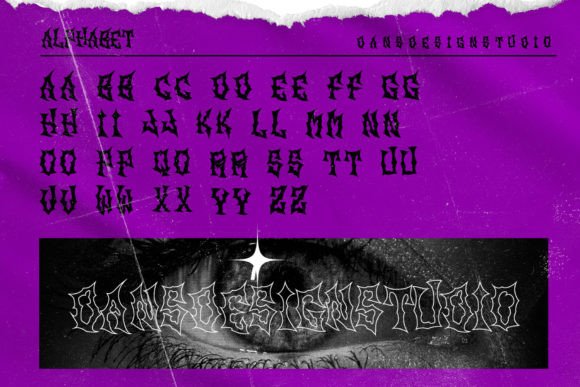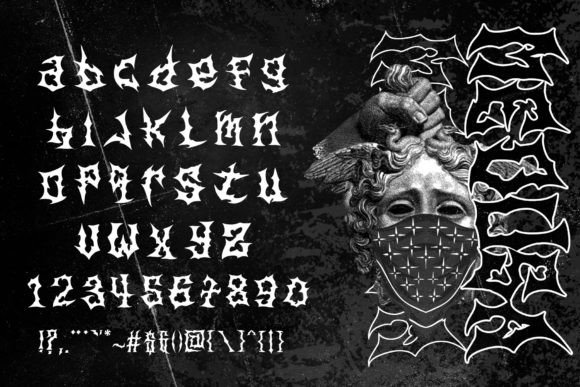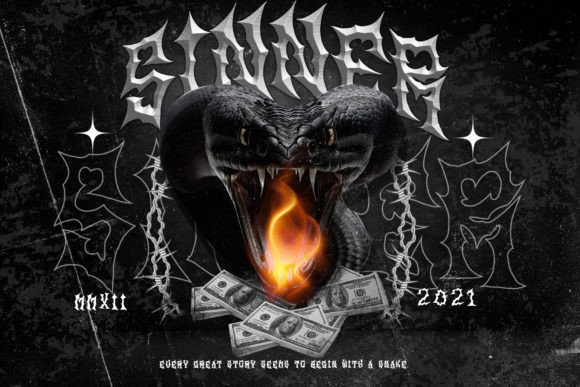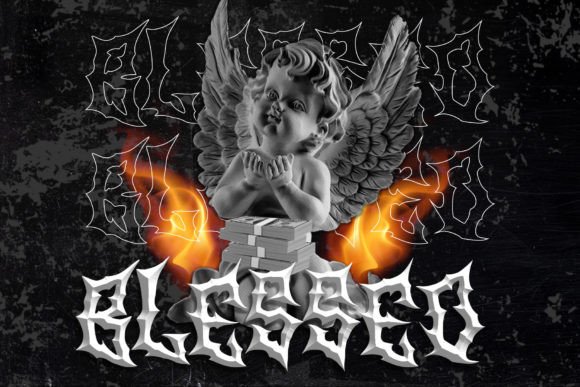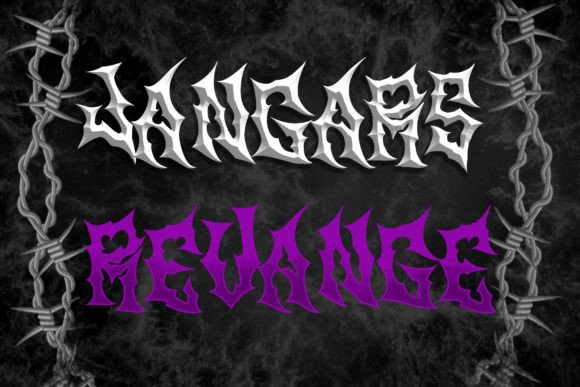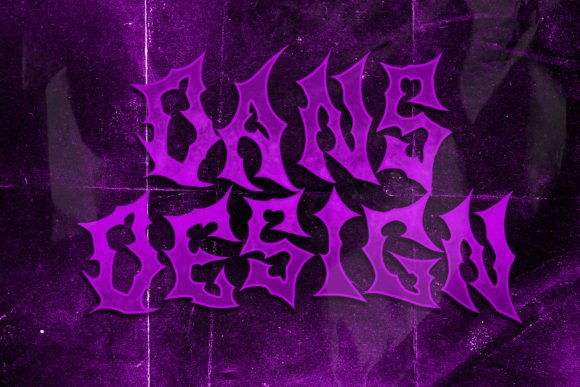
Beringas Font: Unleash the Horror with this Modern Metal Font
In the realm of typography, fonts play a crucial role in conveying the tone and aesthetic of a design. For those who dare to venture into the darker side of design, the Beringas Font is an excellent choice. This modern metal horror font is a distinct, highly detailed, and horror metal font that is sure to make a statement in any design project.
What is Beringas Font?
BERINGAS Modern Metal Horror Font is a unique and captivating font that embodies the essence of horror and metal music. Its intricate details and bold design make it perfect for creating eye-catching posters, logos, and branding materials for tattoo businesses, music bands, and other creative ventures.
Key Features of Beringas Font
- Highly Detailed Design: Beringas Font boasts an exceptionally detailed design, making it ideal for high-resolution prints and digital displays.
- Horror Metal Aesthetic: This font is specifically crafted to evoke the dark, edgy vibe of horror and metal music, perfect for projects that require a bold and intense look.
- Versatility: Beringas Font can be used for a wide range of applications, including music posters, retro-urban designs, tattoo business branding, logos, vintage designs, and more.
Use Cases for Beringas Font
Beringas Font is an incredibly versatile font that can be used in various design projects. Here are some use cases to inspire your creativity:
- Music Posters: Create hauntingly beautiful posters for metal music bands, concerts, or music festivals.
- Tattoo Business Branding: Use Beringas Font to create bold and edgy logos, business cards, or brochures for tattoo artists or studios.
- Retro-Urban Designs: Add a touch of horror and metal to your urban-inspired designs, such as flyers, posters, or social media graphics.
- Logos and Branding: Craft distinctive logos and branding materials for businesses that require a bold and intense visual identity.
- Vintage Designs: Incorporate Beringas Font into your vintage-inspired designs, such as distressed prints, retro-style posters, or aged-looking documents.
Why Choose Beringas Font?
In a sea of fonts, Beringas Font stands out for its unique blend of horror and metal aesthetics. Here are some reasons why you should consider using Beringas Font in your next design project:
- Uniqueness: Beringas Font offers a distinctive look that will set your designs apart from the rest.
- High-Quality Design: This font is crafted with attention to detail, ensuring a high-quality design that will impress your audience.
- Flexibility: Beringas Font can be used for a wide range of applications, making it a valuable addition to your font library.
Beringas Font is an exceptional modern metal horror font that is sure to elevate your design projects to new heights. With its highly detailed design, horror metal aesthetic, and versatility, this font is perfect for designers and crafters who dare to venture into the darker side of design. Whether you’re creating music posters, tattoo business branding, or retro-urban designs, Beringas Font is an excellent choice. So, unleash the horror and add Beringas Font to your font library today!